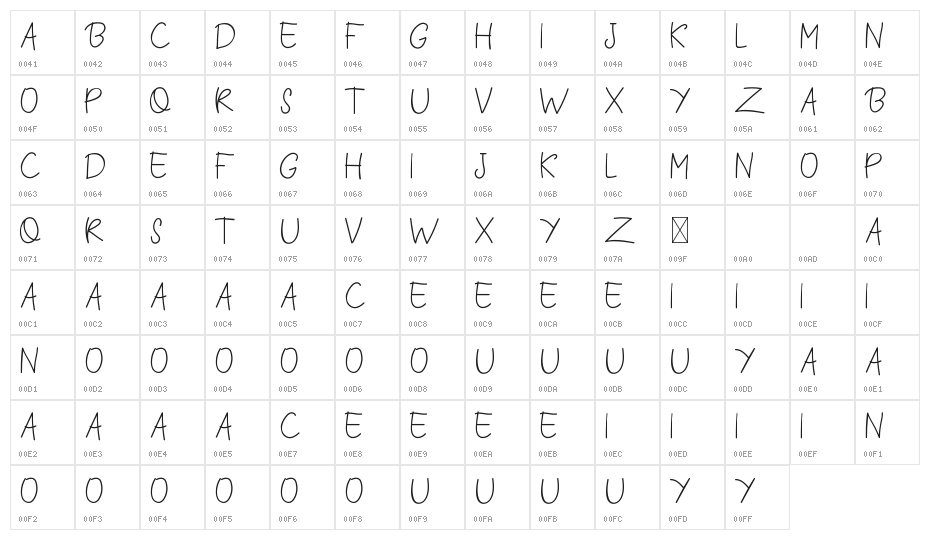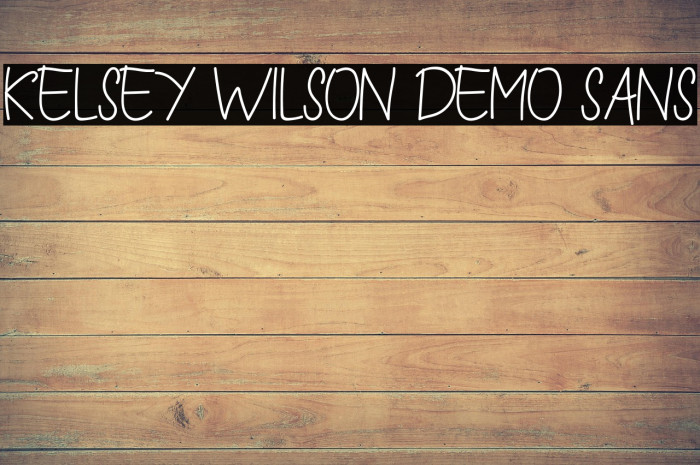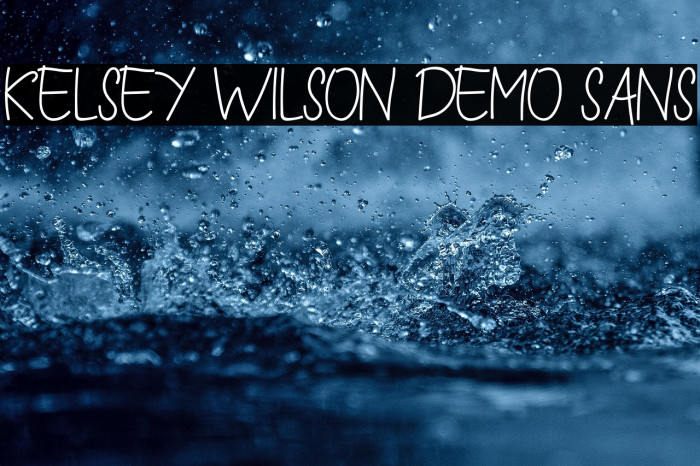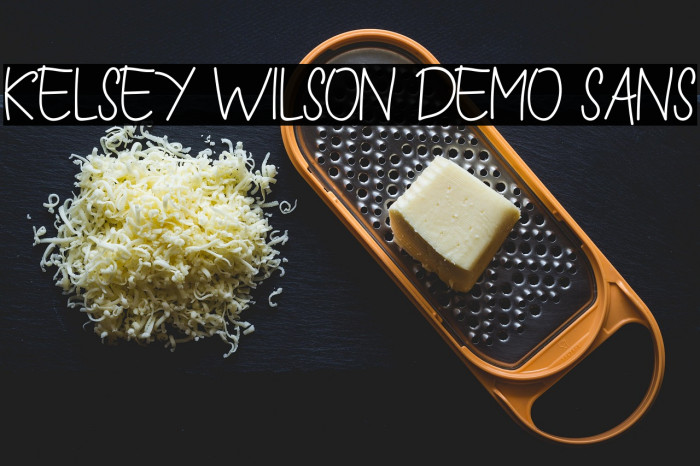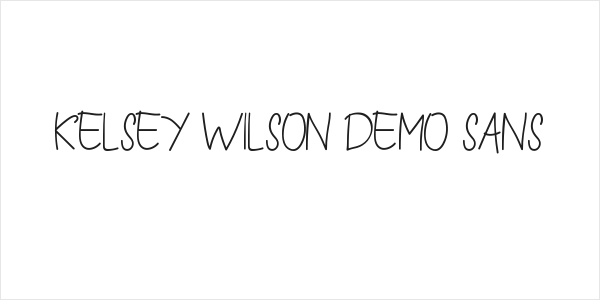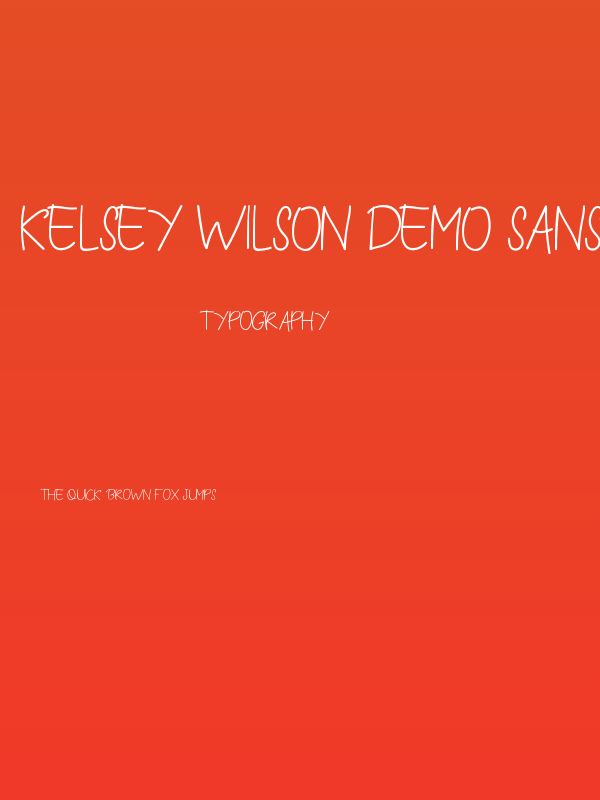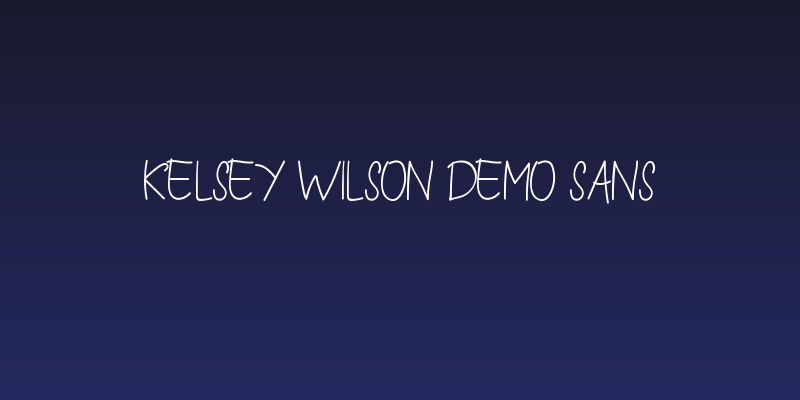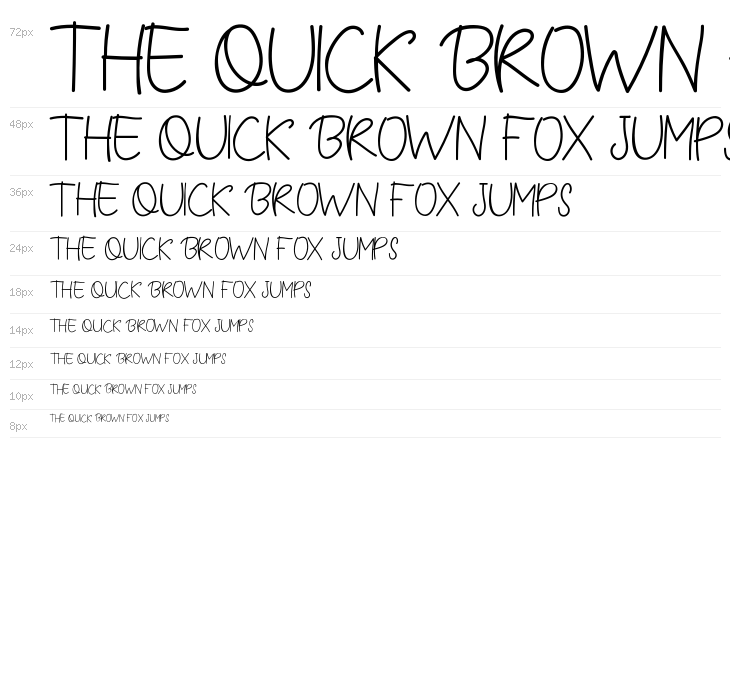
Kelsey Wilson Demo Sans Font
Kelsey Wilson Demo Sans Description
This font features a playful and casual handwritten style, characterized by its smooth, flowing lines and slightly irregular letterforms. The uppercase and lowercase letters maintain a consistent height, giving it a balanced appearance. The strokes are thin and uniform, contributing to a light and airy feel. The font's informal nature makes it suitable for projects that require a personal touch or a relaxed vibe. Its simplicity and clarity ensure readability, while the unique character shapes add a touch of individuality.
Overall StyleCasual
Use CaseHeadlines, Logos, Informal text
Proposed ProjectsIdeal for greeting cards, invitations, personal branding, and social media graphics.